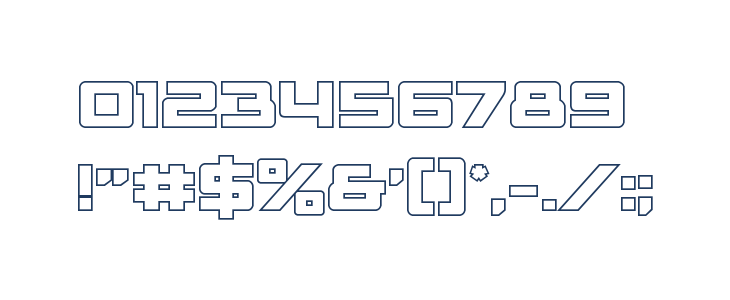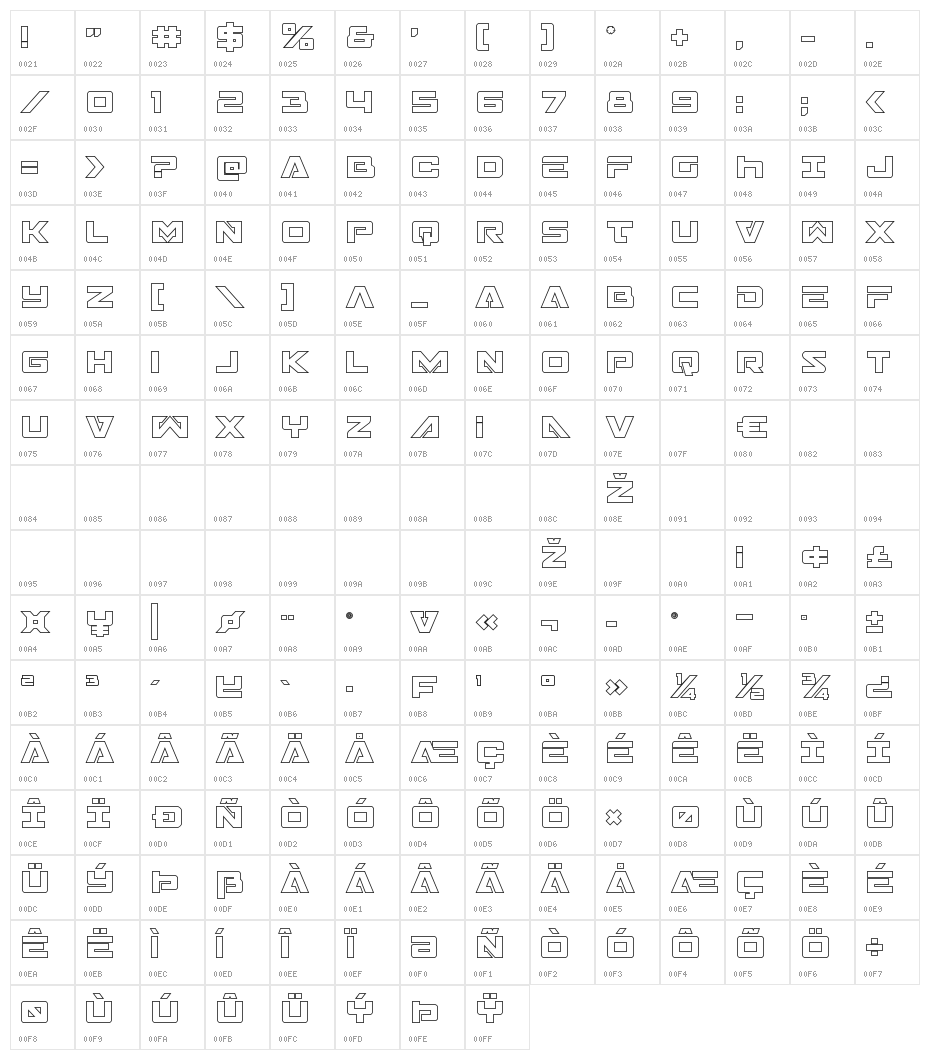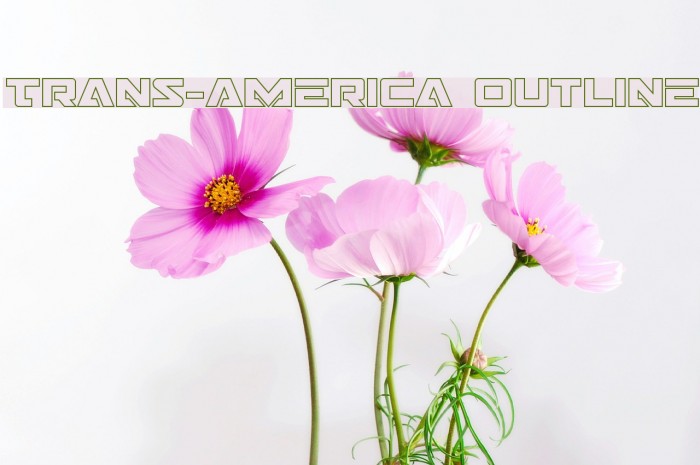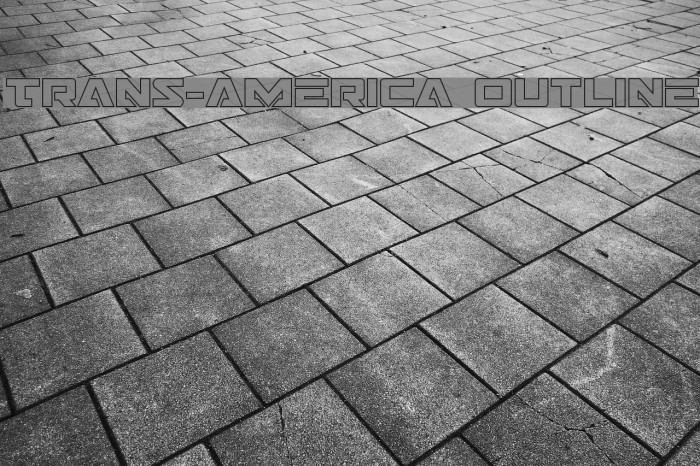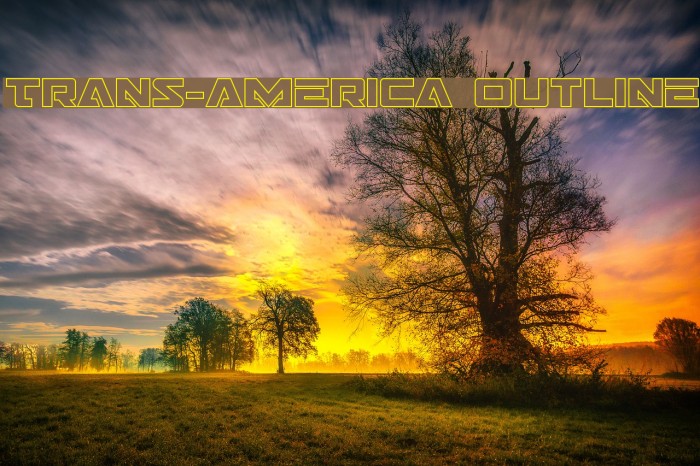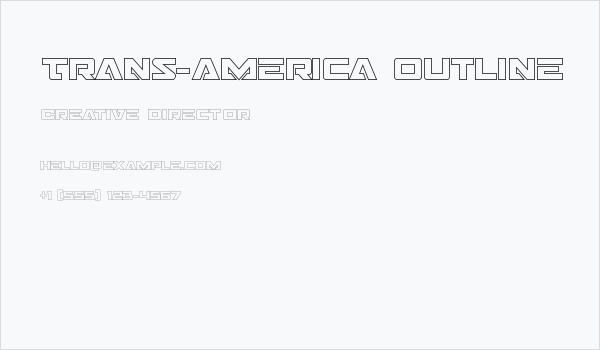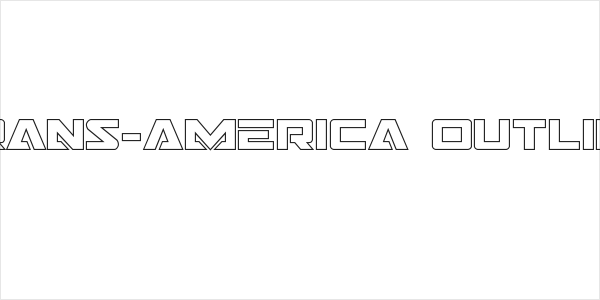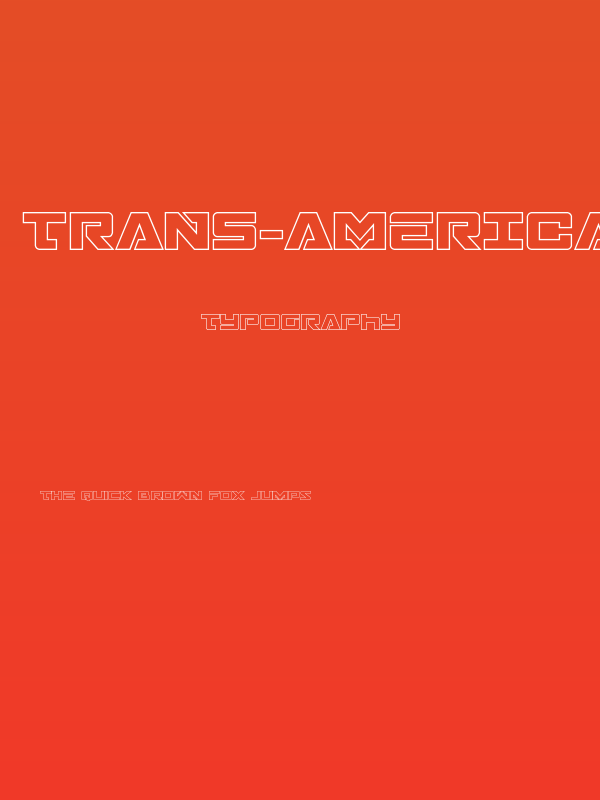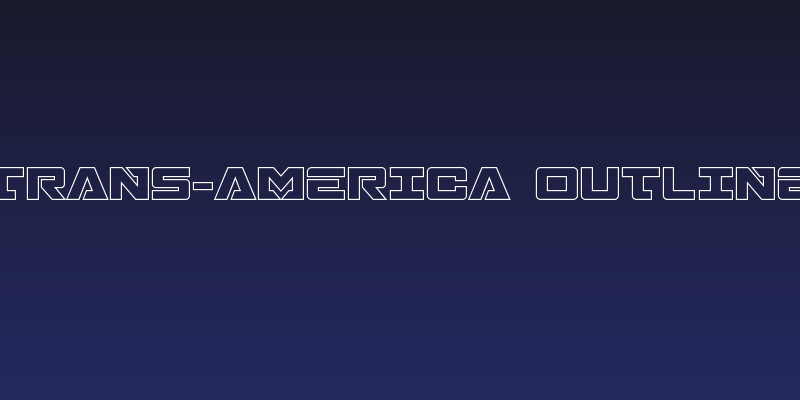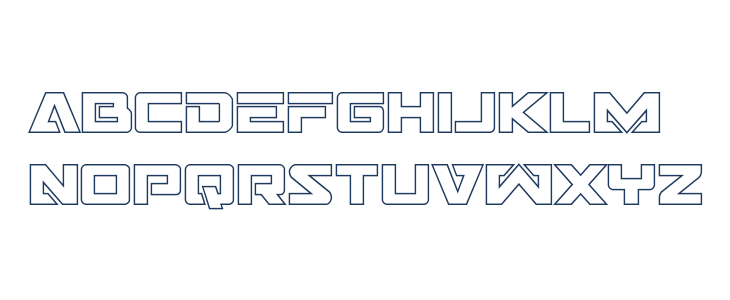
Trans-America Outline Font
Trans-America Outline Description
This font features a bold, geometric outline style with a futuristic and industrial feel. Each character is constructed with clean, angular lines that form a distinct and cohesive appearance. The uppercase letters are particularly striking, with sharp edges and a uniform height that create a sense of stability and strength. The lowercase letters maintain the same geometric structure, ensuring consistency across the typeface. Numbers and special characters are designed to match the bold, outlined aesthetic, making them easily recognizable and visually appealing. The overall design is modern and eye-catching, suitable for projects that require a strong visual impact.